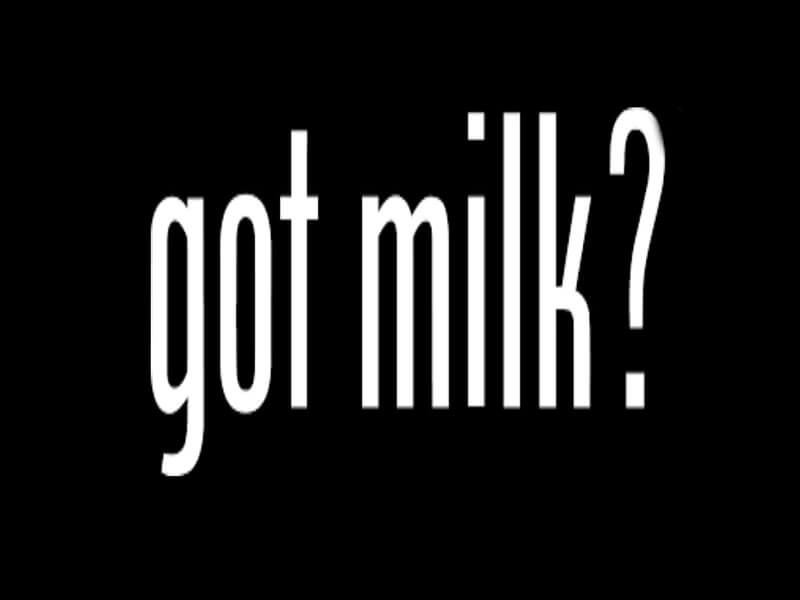
Got Milk Font Similar Free
Got Milk Font Similar Free. This alluring font resembled as phenix american font designed in 1935 by morris fuller benton. The characters used in the ad are essentially equal, so in case you need effects very close to the original download this free font from the lowest of this page.
Having clean and jolly appearance made this font more effective to be used anywhere. That display font family supports a lot of international languages and available only in regular style. This alluring font resembled as phenix american font designed in 1935 by morris fuller benton.
Having Clean And Jolly Appearance Made This Font More Effective To Be Used Anywhere.
This font is ideal for designing titles for posters and flyers. Just as the name suggests, got milk font is a clean and creative typeface that comes with a slim letter design. The marketing campaign was created by goodby silverstein & partners with the aim of increasing milk consumption throughout the usa.
Got Milk Font Belongs To The Sans Serif Font Family That Was First Designed In 2012 By Randy Harris.